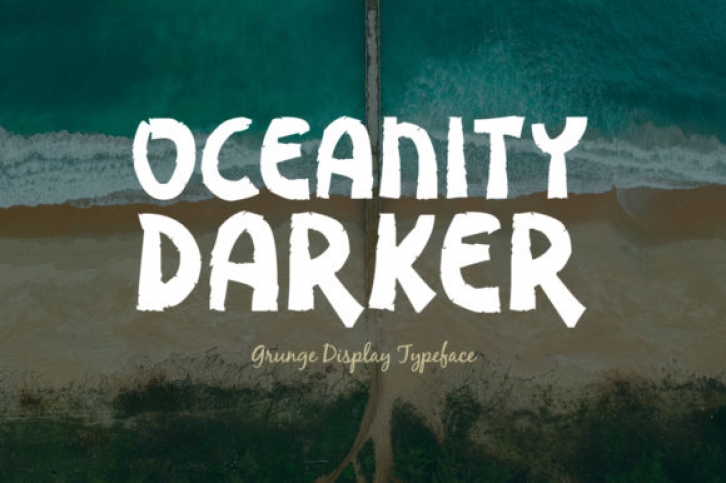
The Oceanity Darker is a brand new display font. It has bold letters with a great readability which makes it perfect for every design which needs to stand out.
It’s perfectly suited for stationery, logos, t-shirts, papers, print designs, website headers, photo frames, flyers, music covers, posters, image sliders and much more!